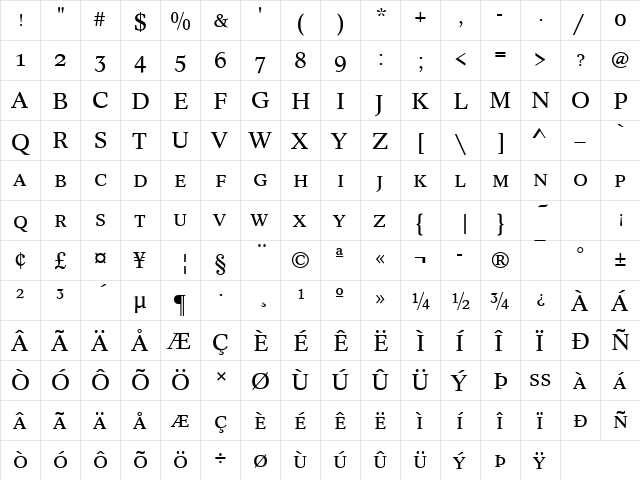
URWCordeliaSCTReg Regular Font Preview
URWCordeliaSCTReg Regular
Design Context for URWCordeliaSCTReg Typeface
URWCordeliaSCTReg takes a measured approach to typography — its balanced proportions and neutral character make it a reliable workhorse for both digital and print work.
Pro Tip: Use URWCordeliaSCTReg in both headline and body roles to test its range before committing to a single application.